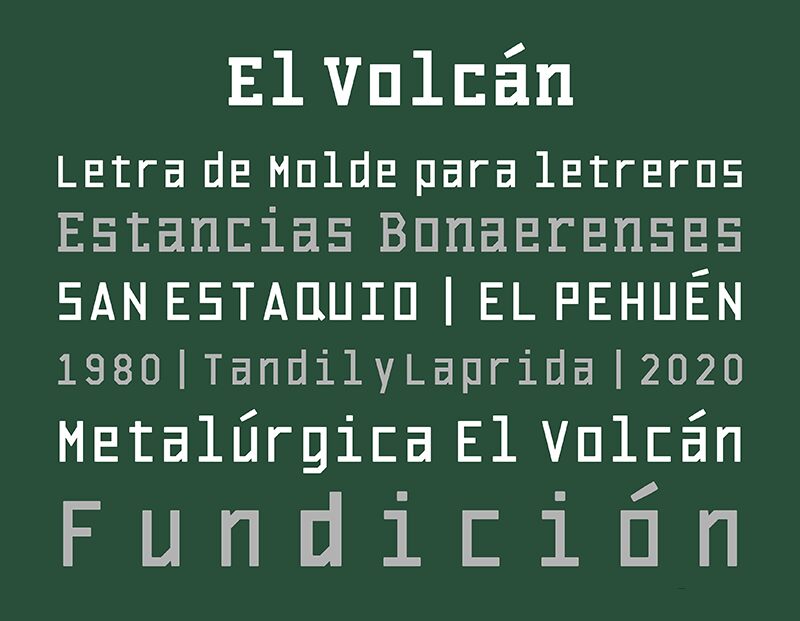
El Volcan Mecana Black
El Volcan Mecana Black font is a slab serif typeface designed by Fabio Ares.
Family for titles based on ranch signs of the Province of Buenos Aires manufactured by the metallurgical El Volcn (Tandil, Buenos Aires, Argentina). The research on which the design is based was carried out by Octavio Osores. Geometric, uniform stroke and monospaced for the sana serif and Mecana styles, and the normal and black variables. The sign coverage corresponds to Dogma 580, by Vicente Lamnaca